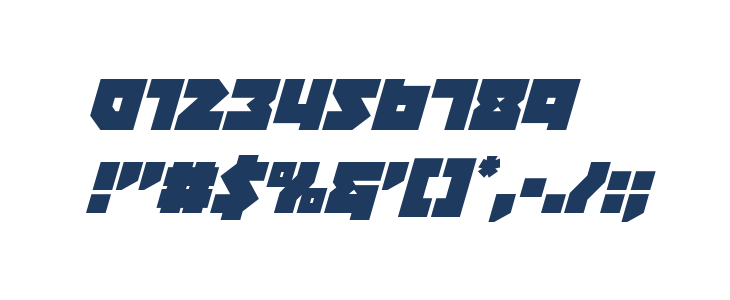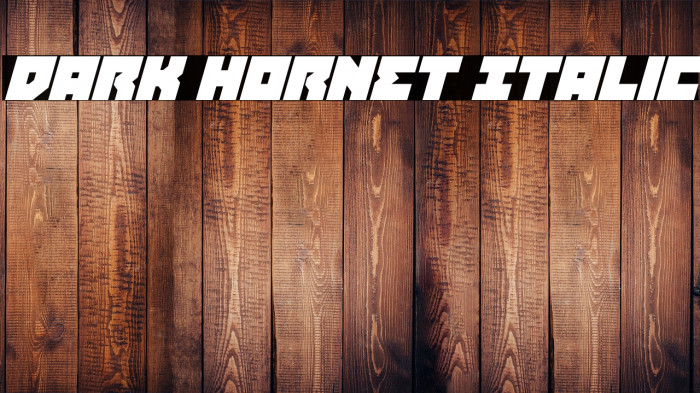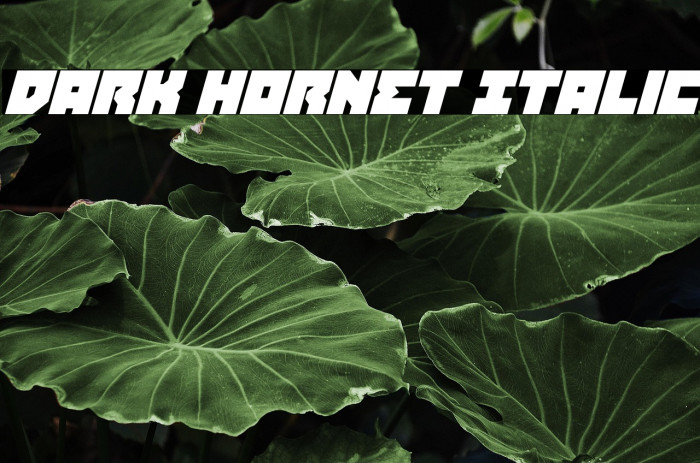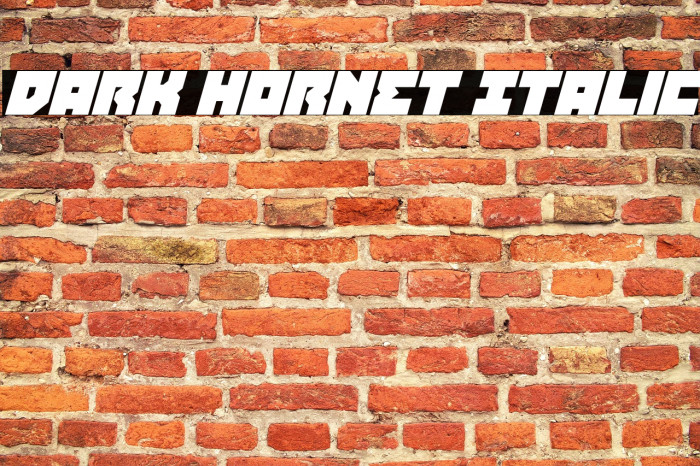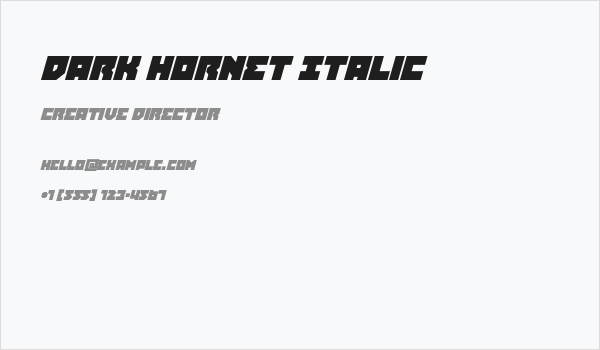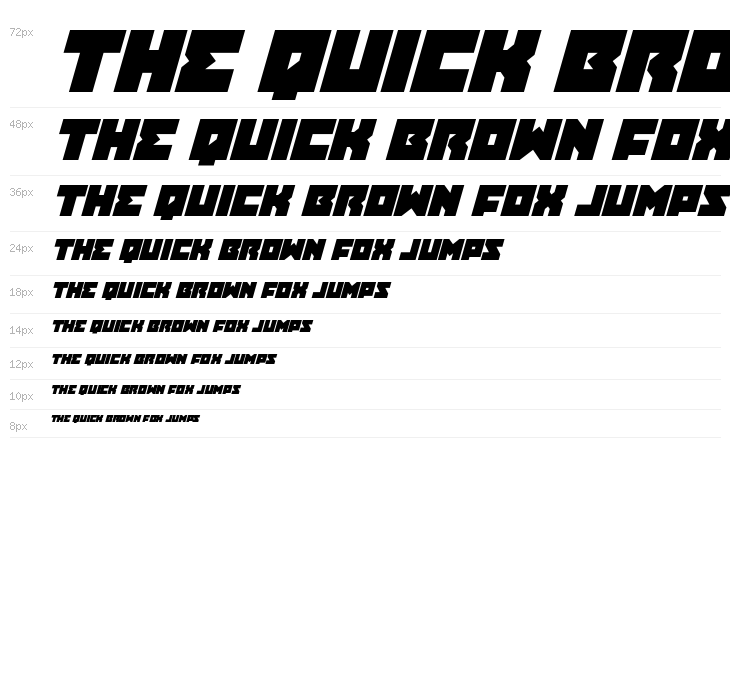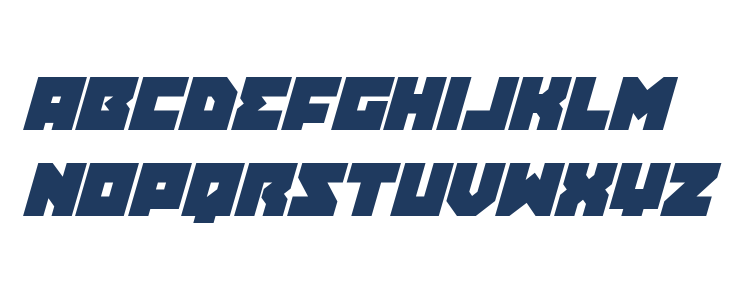
Dark Hornet Italic Font
Dark Hornet Italic Description
This font features a bold, angular design with a distinct italic slant, giving it a dynamic and aggressive appearance. The characters are heavily stylized with sharp edges and geometric shapes, creating a futuristic and edgy look. The uppercase and lowercase letters maintain a consistent style, while the numerals and special characters complement the overall aesthetic. The font's boldness and unique style make it stand out, suitable for projects that require a strong visual impact.
| Proposed Projects | Ideal for video game titles, sports branding, action movie posters, and any project needing a bold, dynamic typeface. |